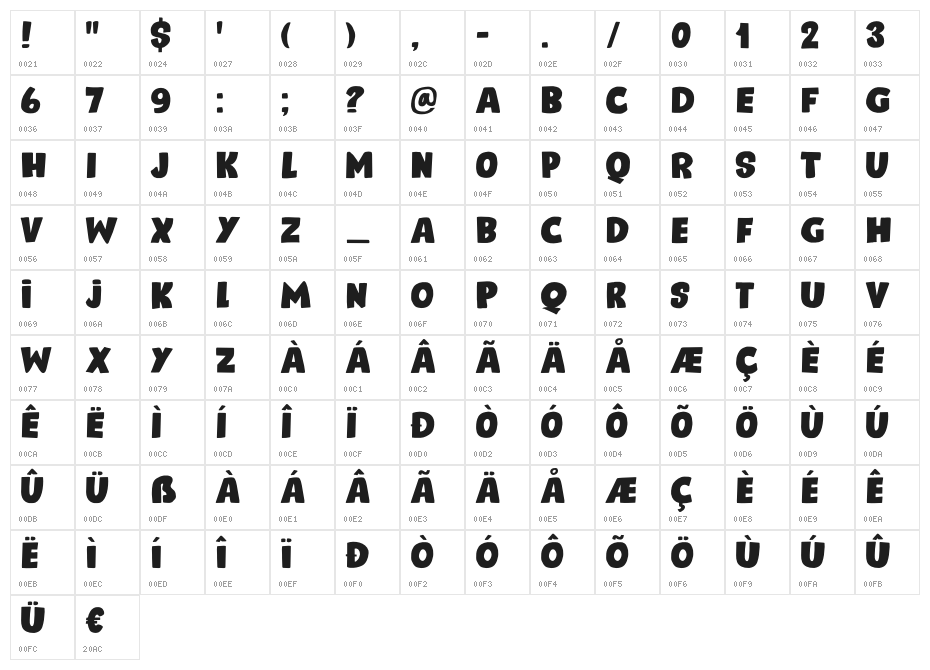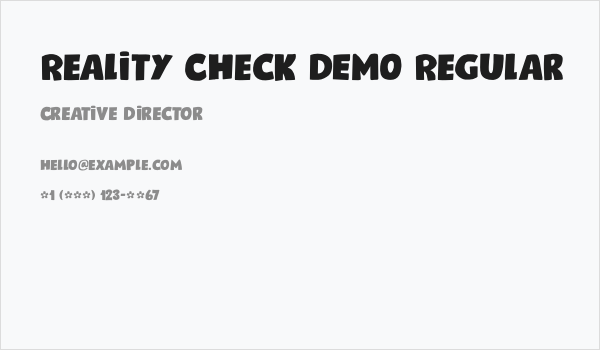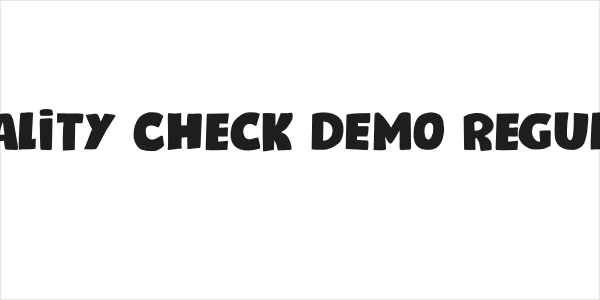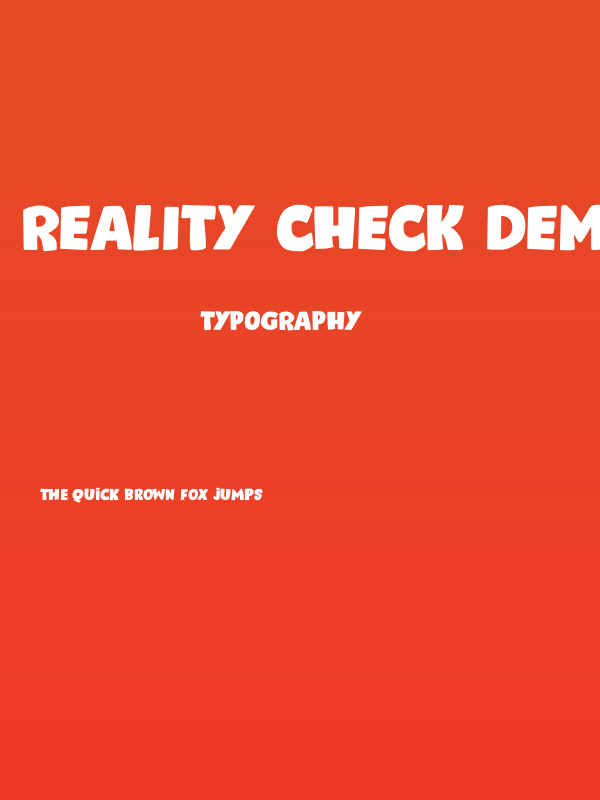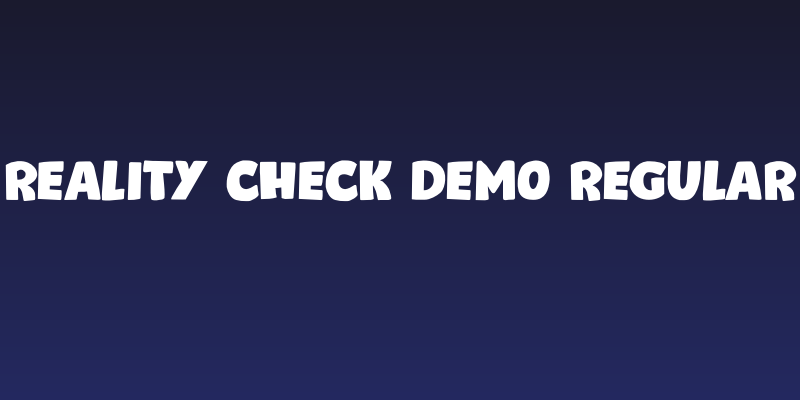
Reality Check DEMO Regular Font
Reality Check DEMO Regular Description
This font features bold, playful characters with a slightly irregular, hand-drawn appearance. The letters are thick and rounded, giving a friendly and approachable feel. The uppercase and lowercase letters maintain a consistent style, with a slight tilt and uneven baseline that adds to its whimsical charm. The numbers and special characters follow the same design principles, ensuring uniformity across all glyphs. The font's boldness and unique style make it stand out, making it ideal for creative and informal projects.
| Proposed Projects | Ideal for children's books, playful branding, posters, and creative projects that require a fun and informal touch. |